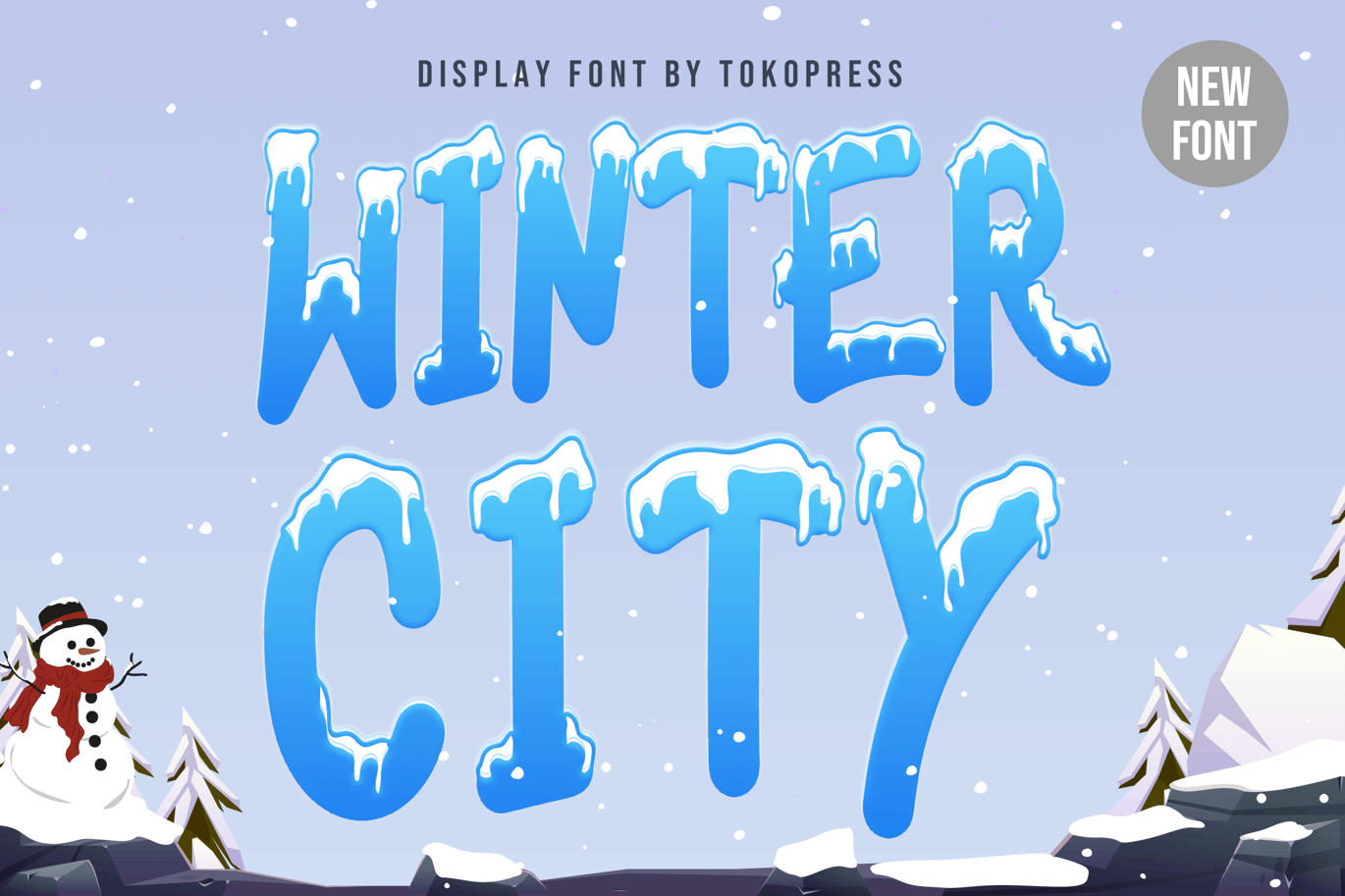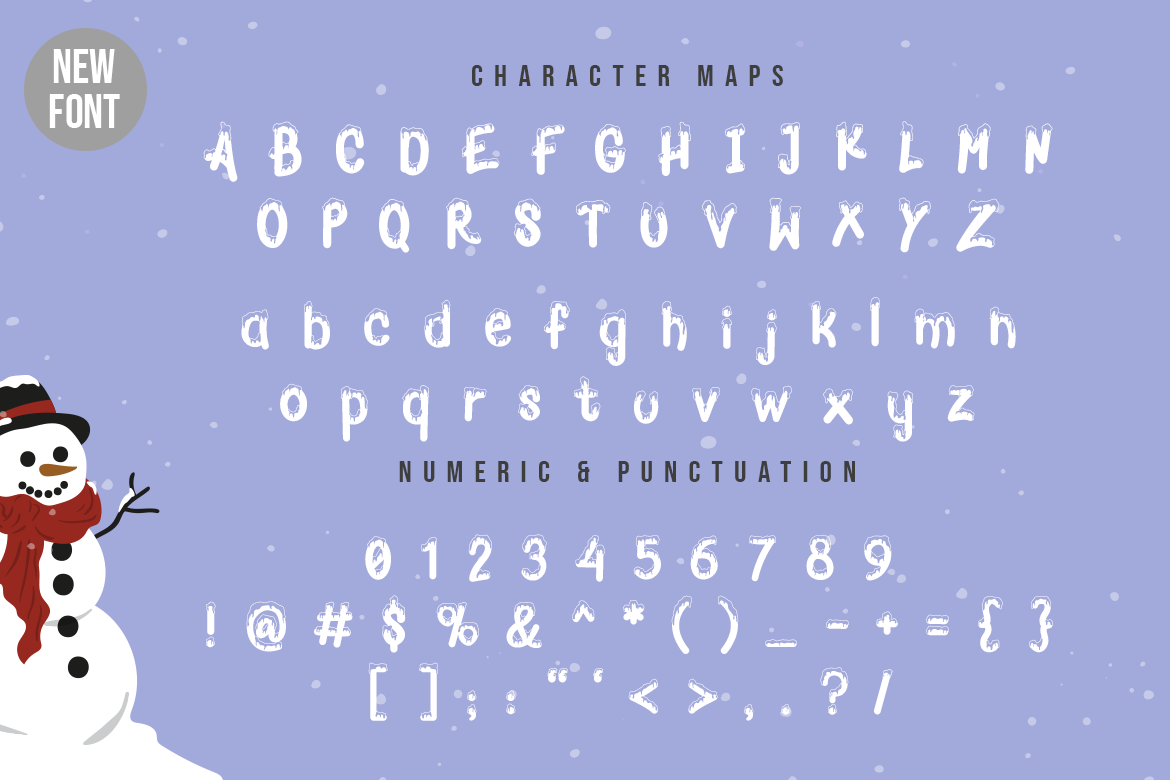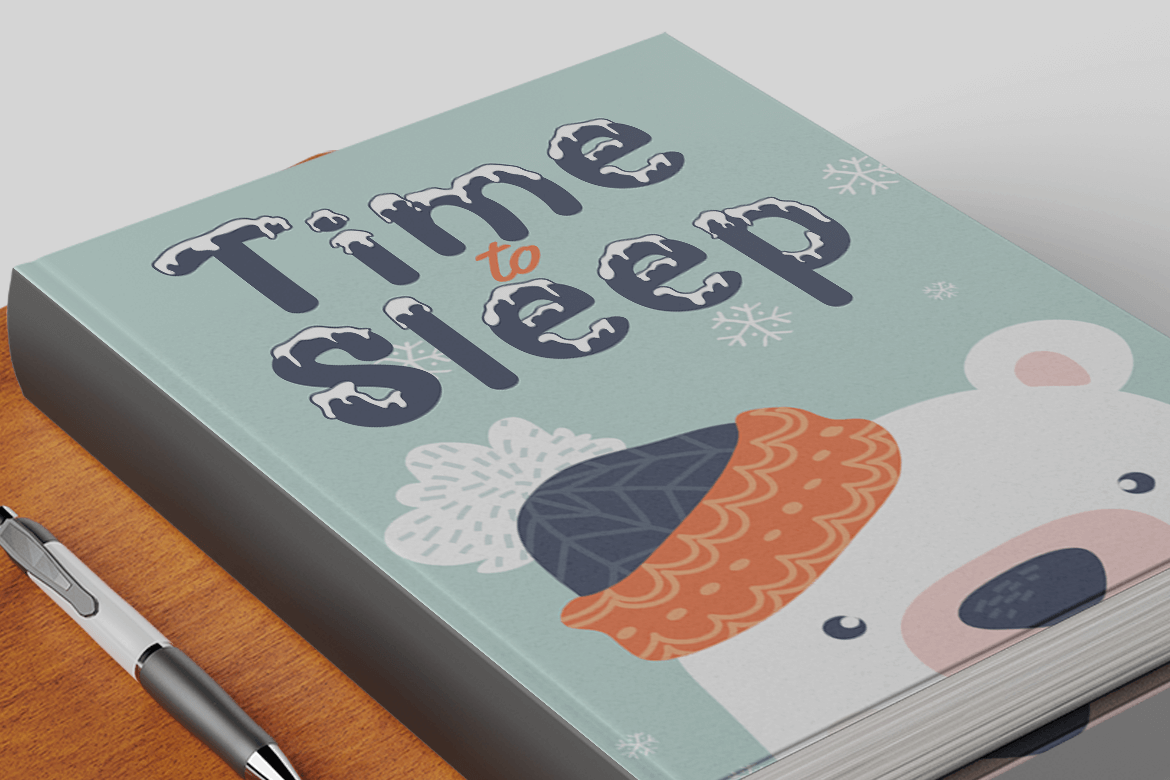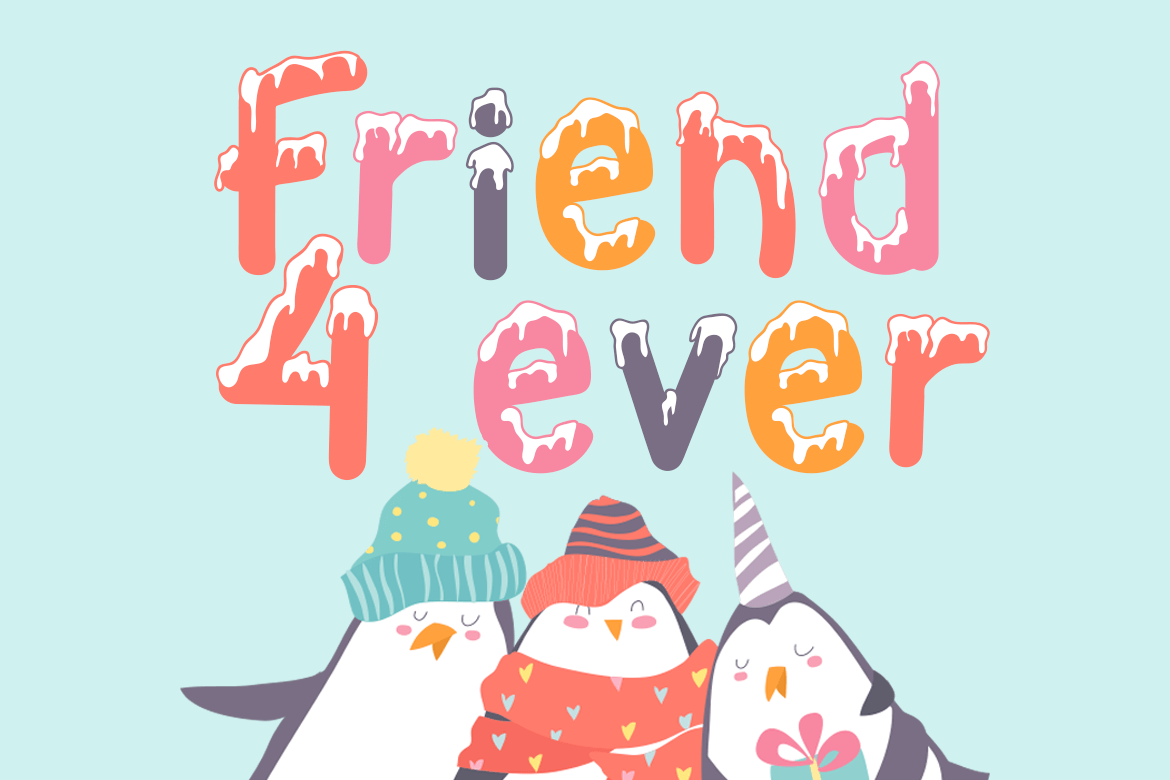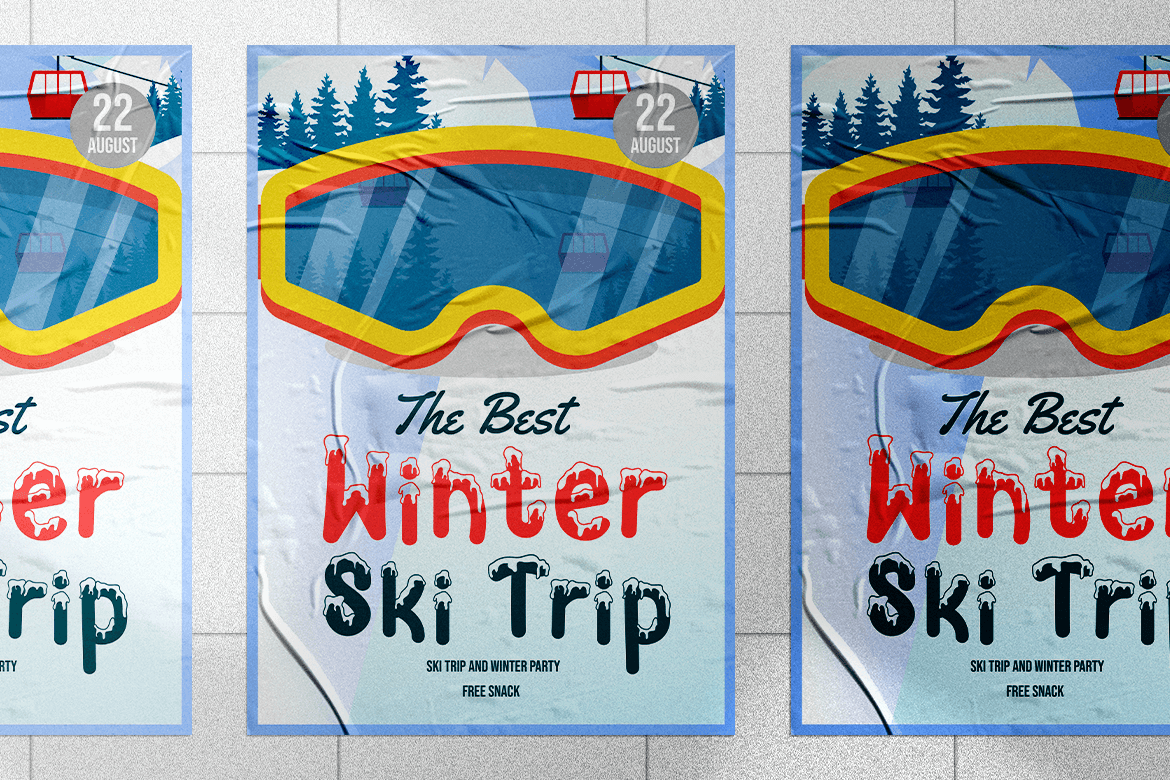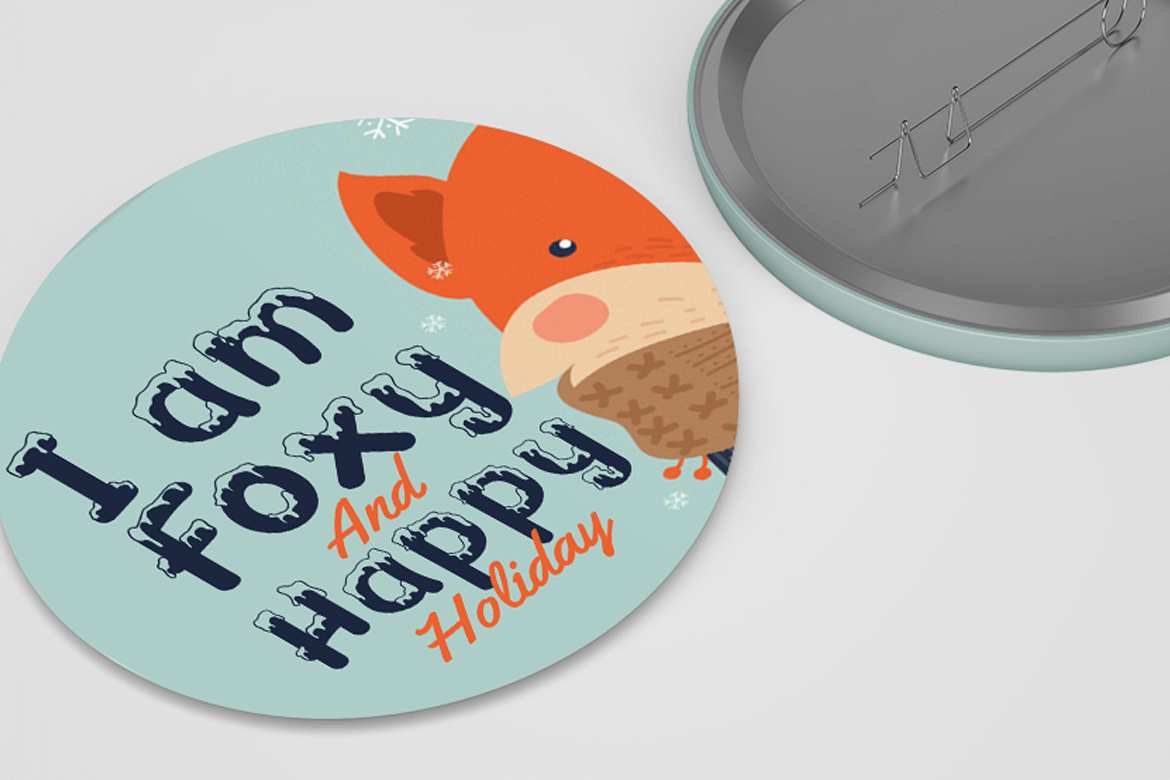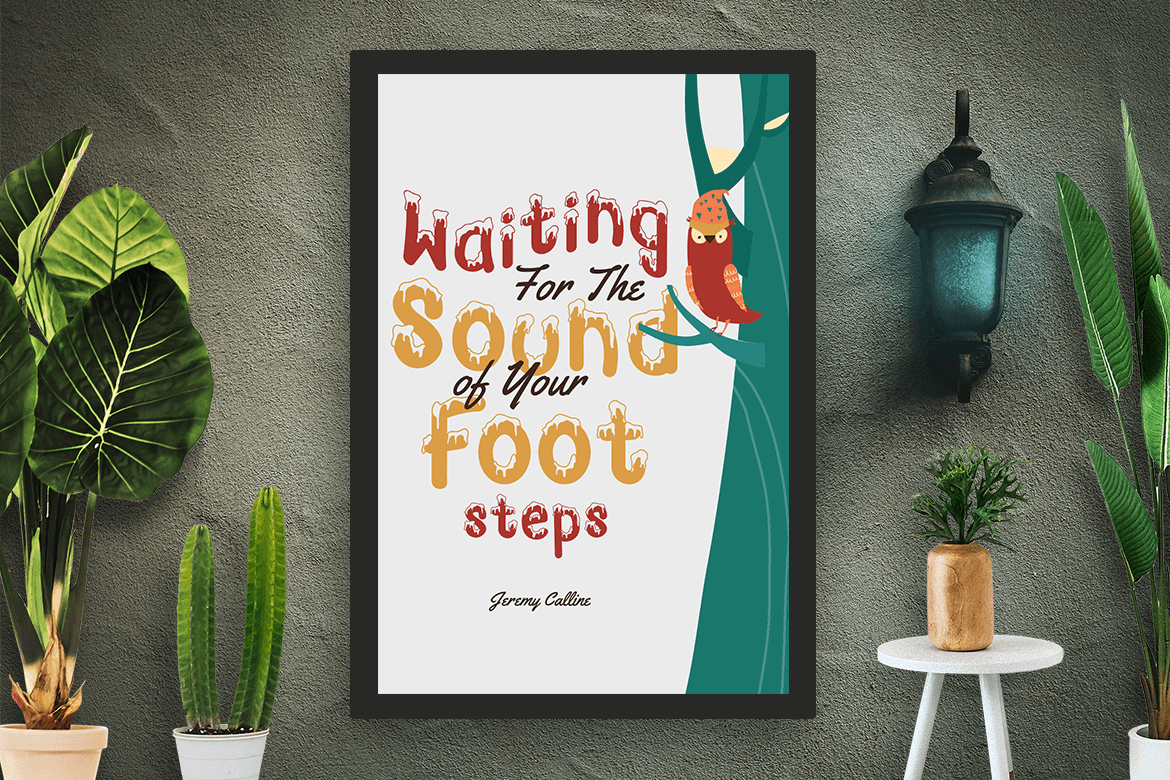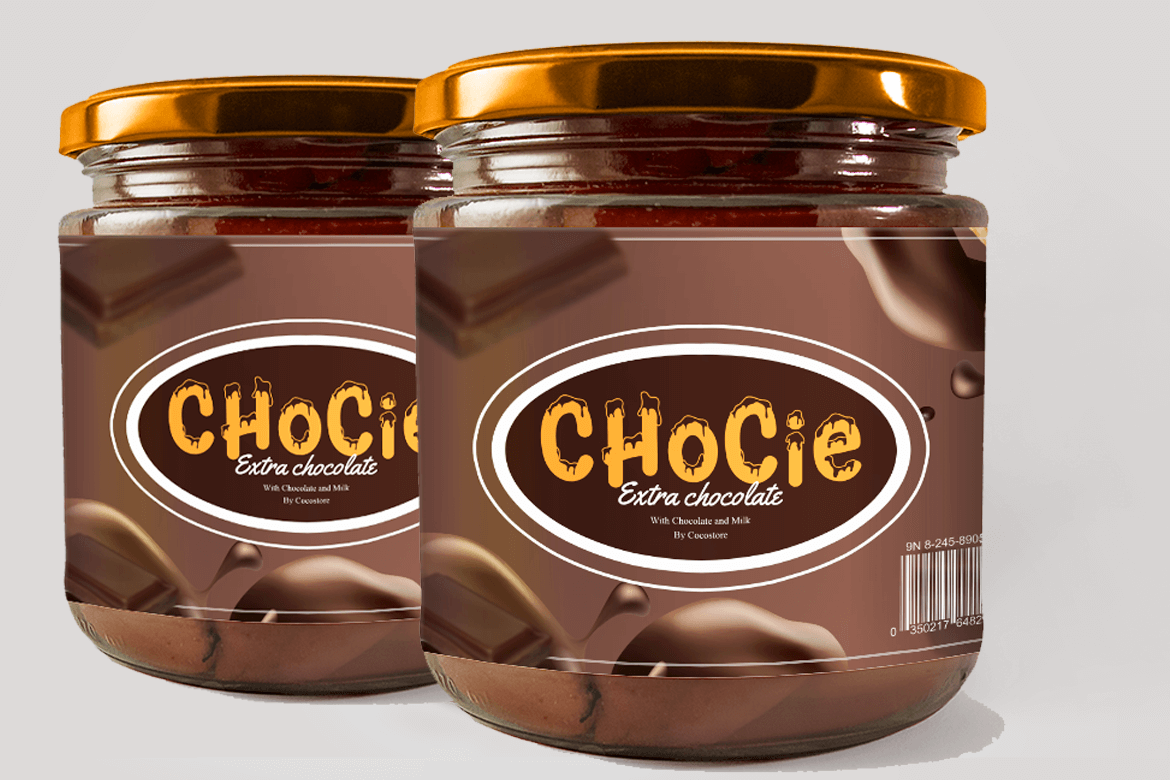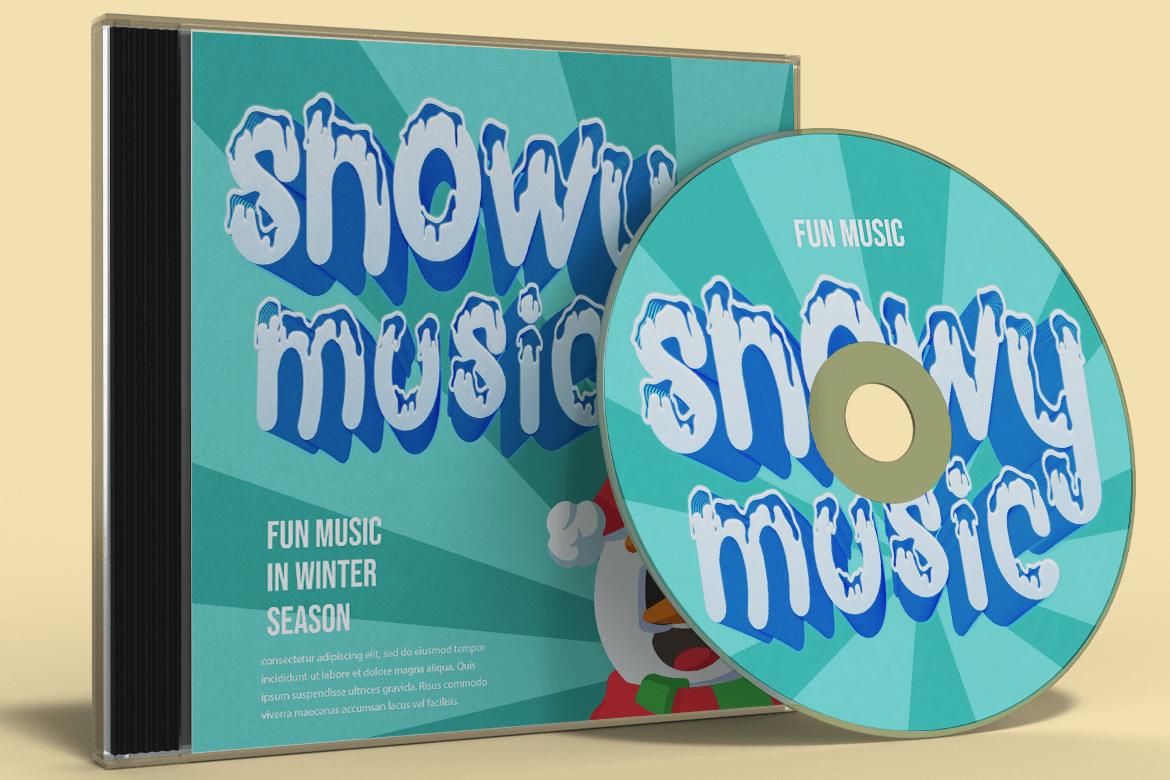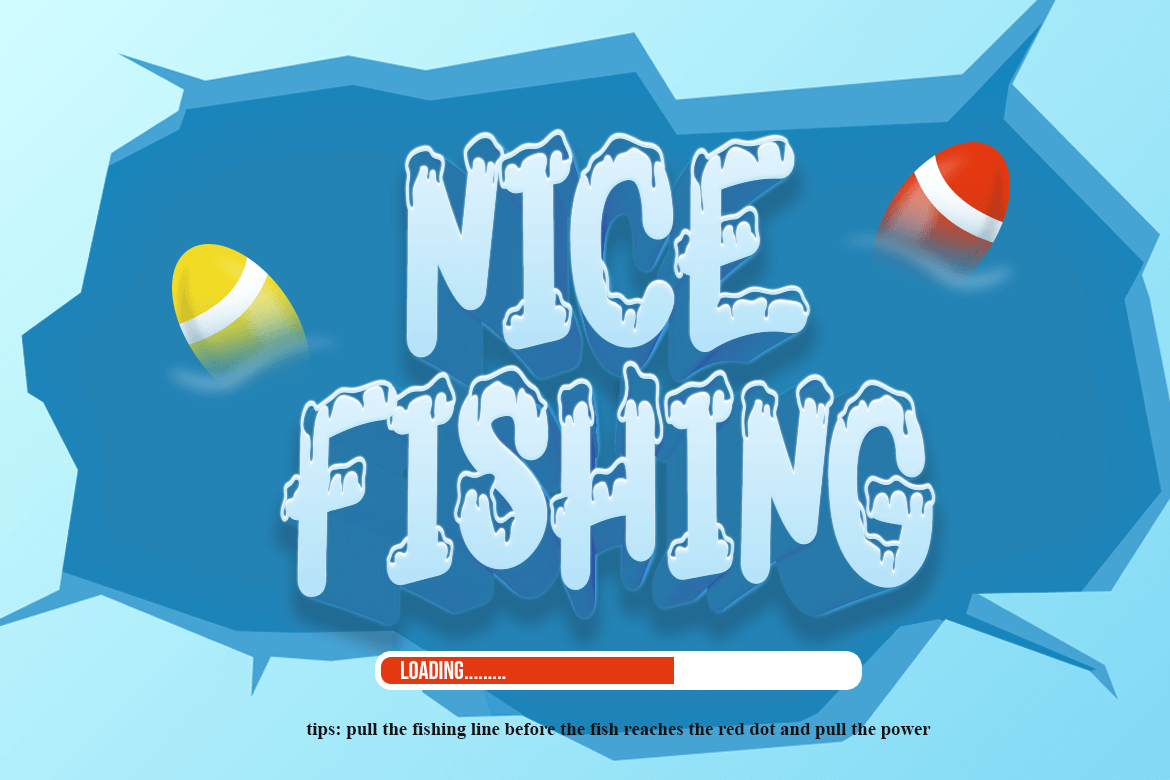
Winter City – Kids font
Winter City – Winter Kids font
The happiness and joy of snow weather. And Winter City is all about that. It bring smile all over the place, with that snowy part on the top of it face.
Suit perfectly for kids books market, online games, stationary, school supplies font, poster, movie title, youtube covers, youtube thumbnails, social media page covers and so on…